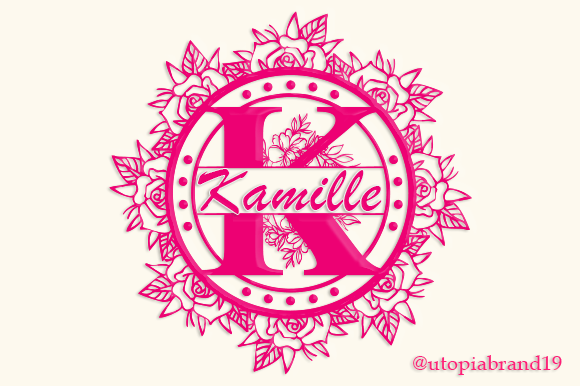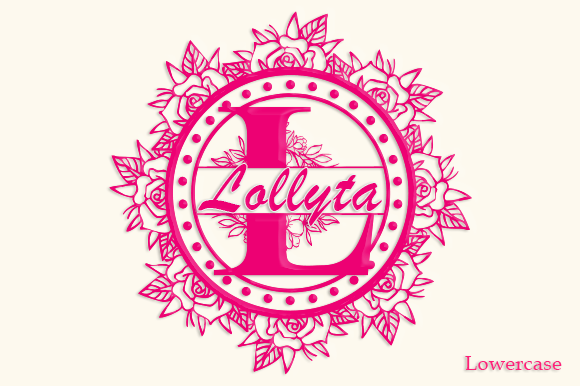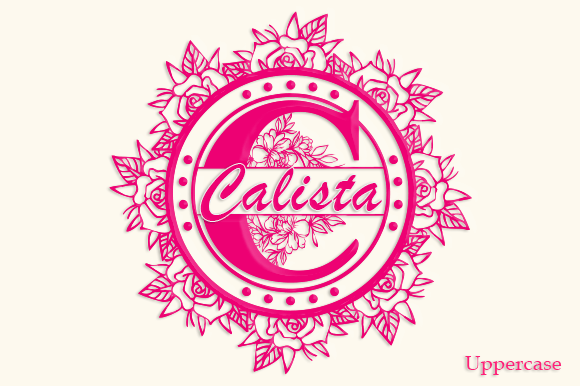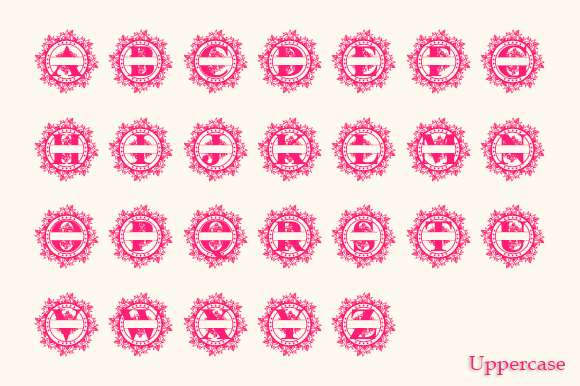
Kamille Monogram Font
About the Kamille Monogram Font
Elevate your designs with Kamille Monogram Font, a font that combines sophistication with readability. Kamille Monogram is an elegant decorative font, featuring lovely ornaments. Fall in love with its authentic feel and use it to create gorgeous wedding invitations, beautiful stationary art, eye-catching social media posts, and cute greeting cards.
Kamille Monogram’s elegant, decorative style is ideal for projects requiring a touch of vintage charm. It excels in short, impactful text such as logos, headlines, and short social media captions. Its ornate nature makes it perfect for wedding invitations, stationery, and packaging designs where visual detail is paramount. However, avoid using it for body text or lengthy paragraphs; its decorative elements would hinder readability.
Consider pairing Kamille Monogram with a clean sans-serif font like Montserrat for a modern contrast, or a classic serif like Garamond for a more traditional feel. For a playful touch, a script font with simpler strokes could work well. Avoid pairing it with other highly ornamented fonts, as this would create visual clutter.
Kamille Monogram projects a sophisticated and romantic personality. It is best suited to brands and projects that evoke feelings of luxury, tradition, or handcrafted quality, such as high-end boutiques, artisanal food companies, or luxury event planning.
Kamille Monogram Font Usage Examples
Kamille Monogram Font Example